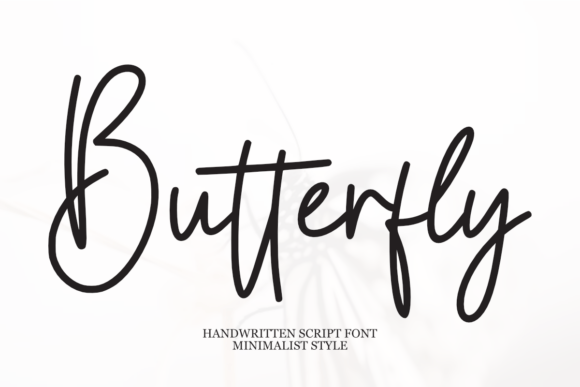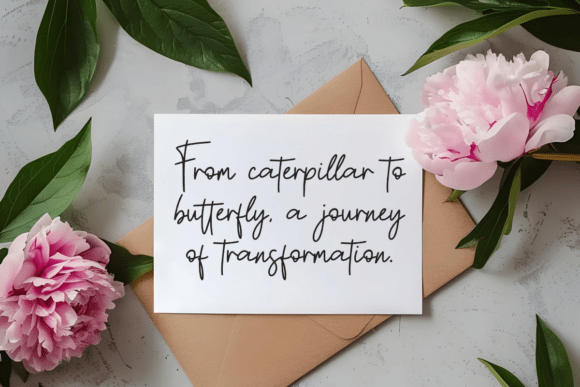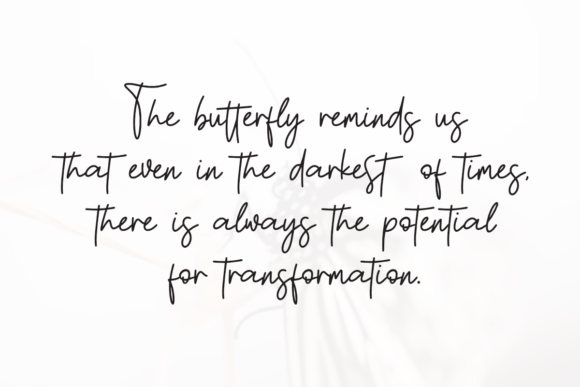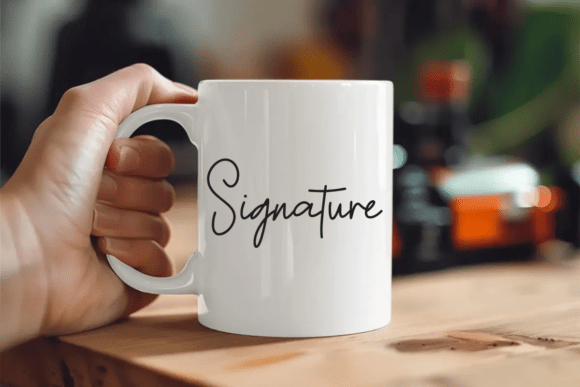
About the Butterfly Font
Explore the possibilities with Butterfly Font, a font that offers both beauty and functionality. Butterfly is a sweet and cursive signature handwritten font. This gentle font will look gorgeous on a variety of design ideas. It will add a joyful and romantic touch to each of your projects! Perfectly fit for branding, logo, wedding things, greeting cards, fashion, lookbook, marketing promotion, and any time you want your design to look fancy and elegant but still casual.
Butterfly Font Usage Examples
Butterfly Font Example